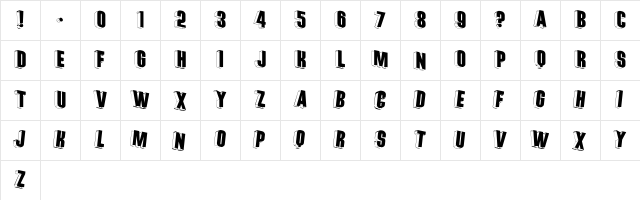
ThreeDimRightwards Regular
Design Context for ThreeDimRightwards Typeface
ThreeDimRightwards is a composed and adaptable typeface that performs quietly and consistently across a wide range of design contexts.
Pro Tip: Use ThreeDimRightwards in both headline and body roles to test its range before committing to a single application.